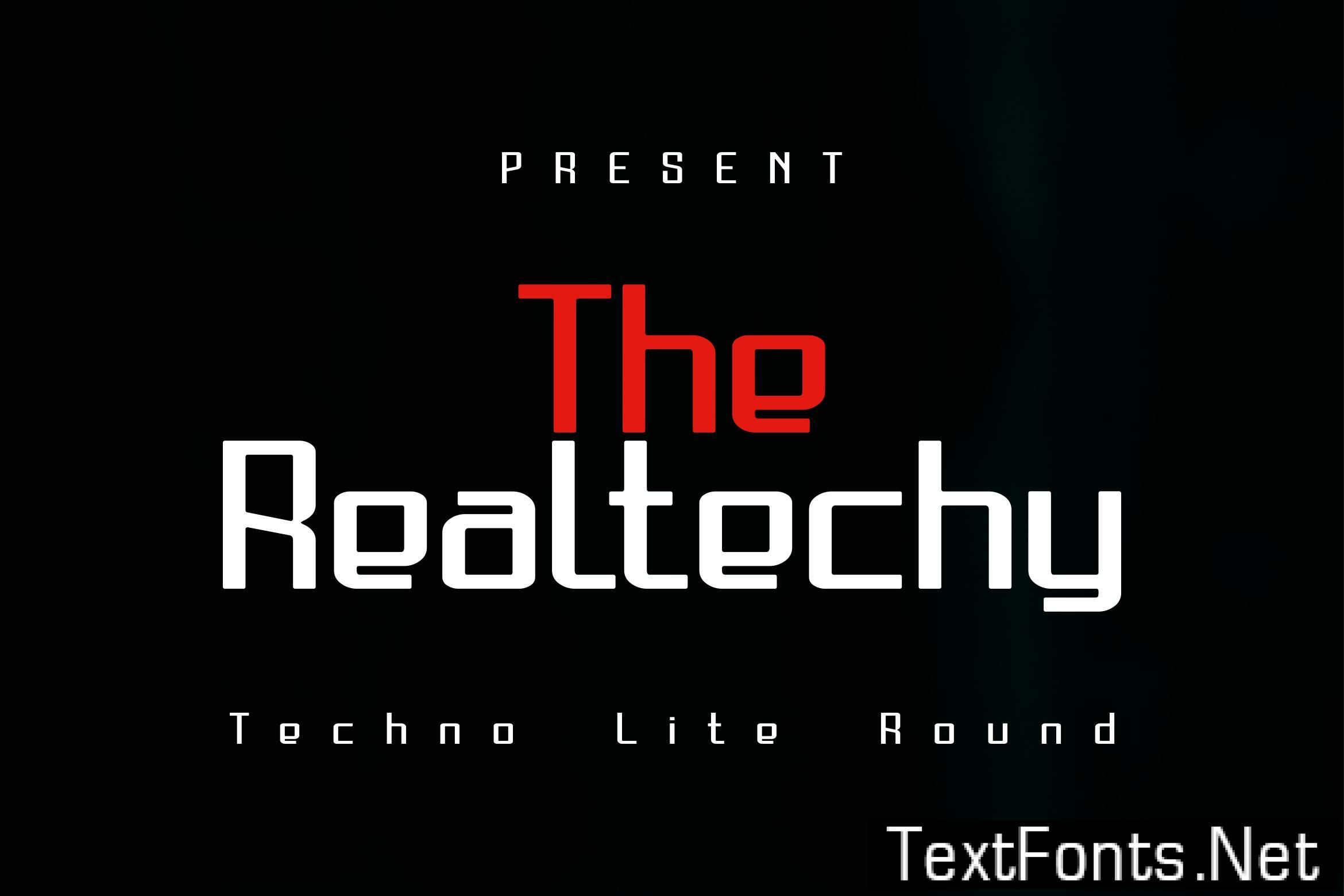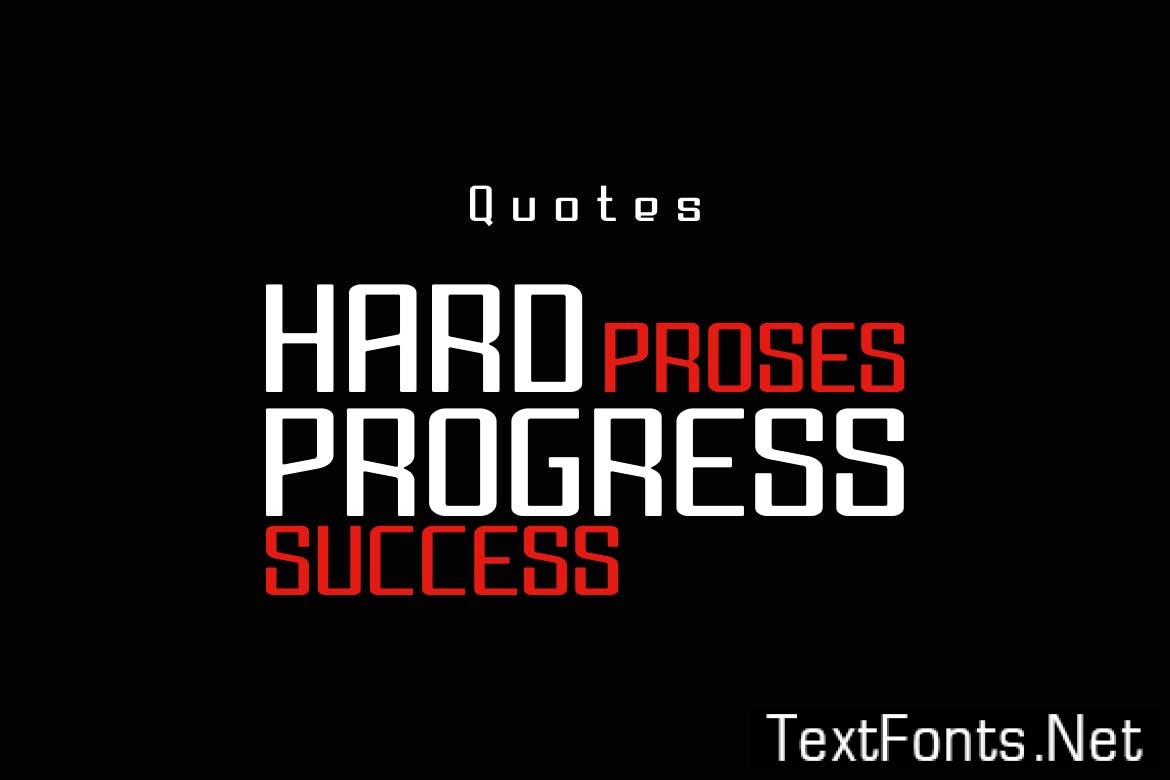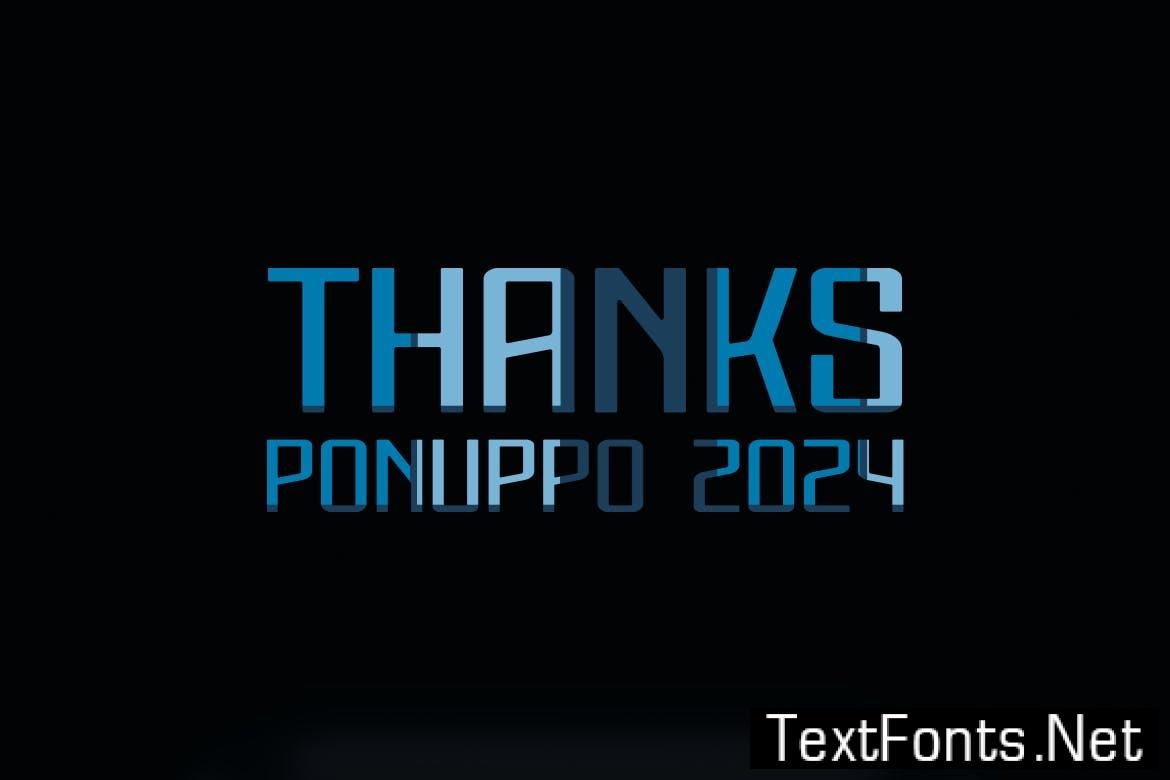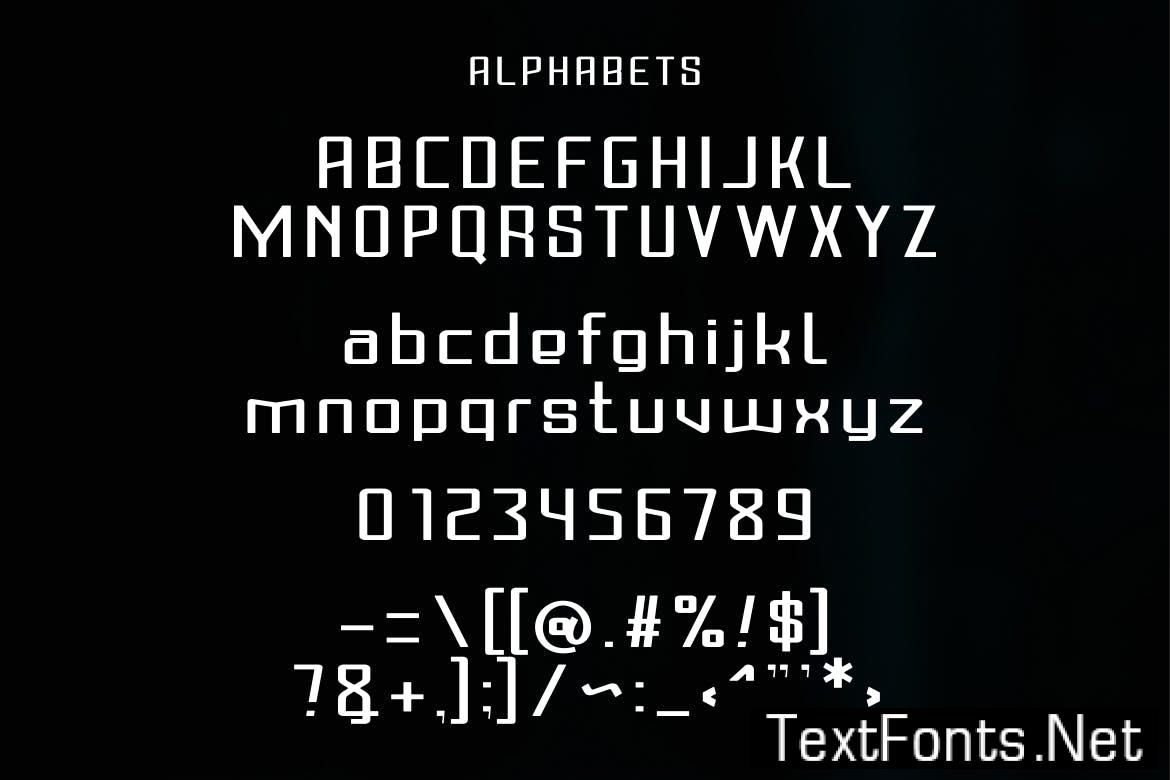
Introducing the most recent addition to the font world – Font Yang, a techno-inspired design boasting sleek edges and a slim silhouette. Specifically crafted for a broad spectrum of technology needs, its gently softened tips make it versatile and visually appealing. Font Yang’s modern and streamlined character makes it a standout choice for any tech-savvy enthusiast. Its unique design seamlessly marries the worlds of art and technology, making it an ideal font for anyone in the digital tech sphere.